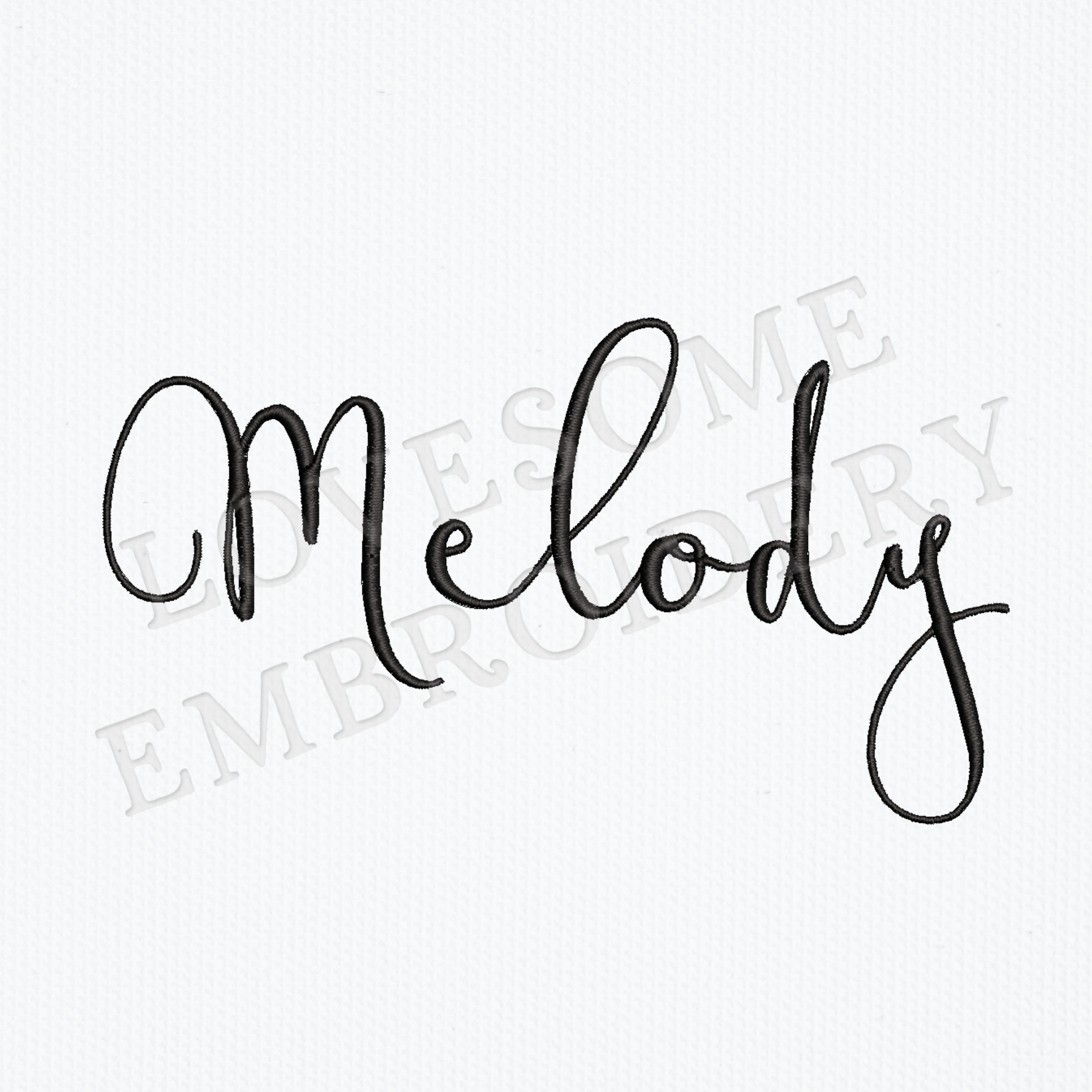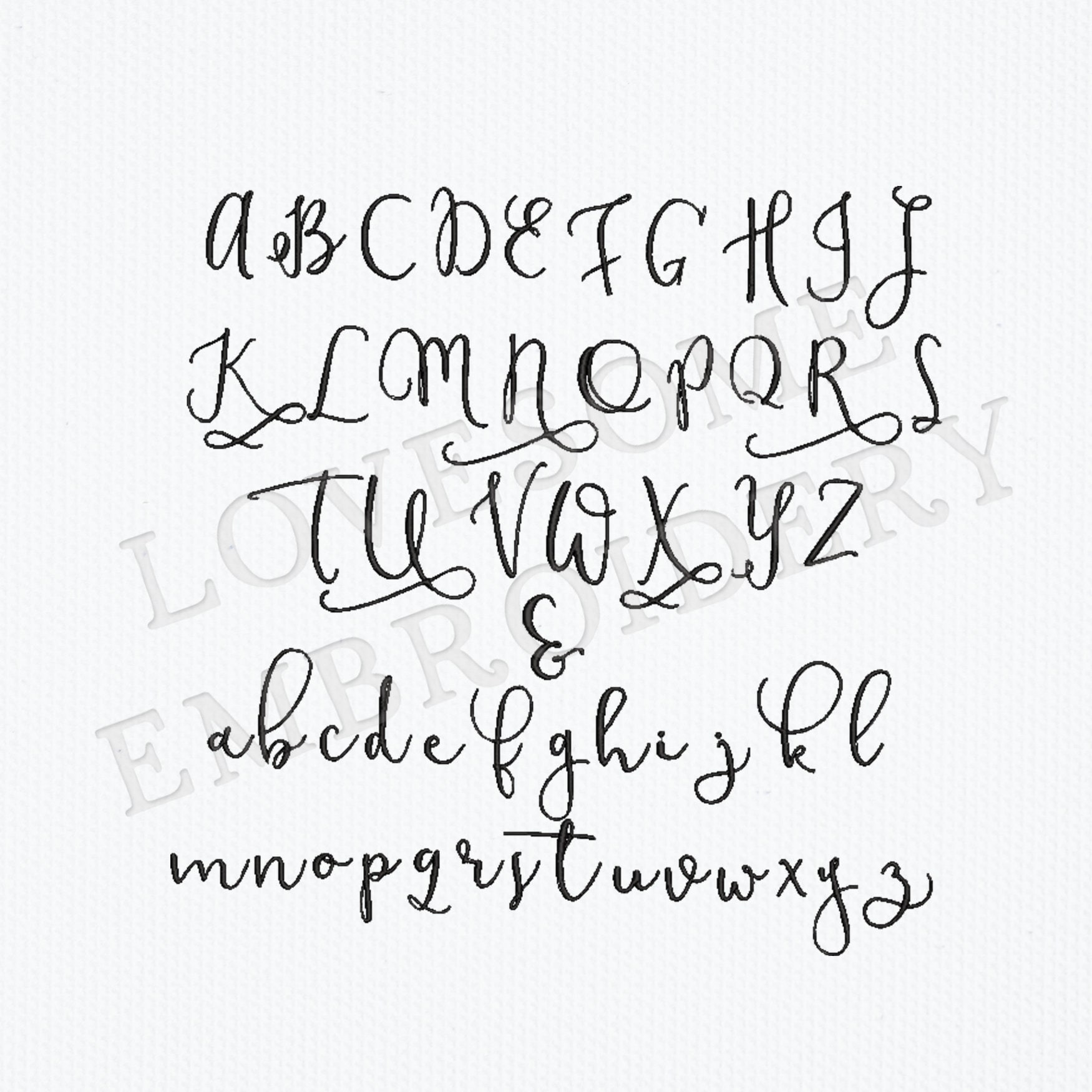
Melody Script 2inch Font A-Z, Fancy Cursive Embroidery Font, Machine Embroidery Digital Download | Lovesome Design
This listing features a machine embroidery font set which includes embroidery files of 26 uppercase and 26 lowercase letters in 2inch size. (For the whole set, pls see the listing images.)